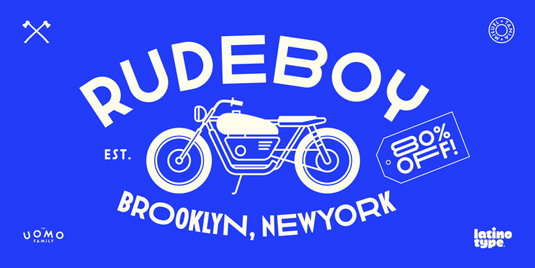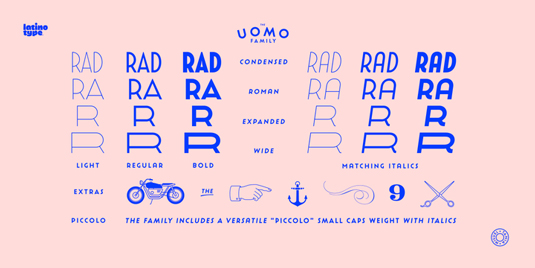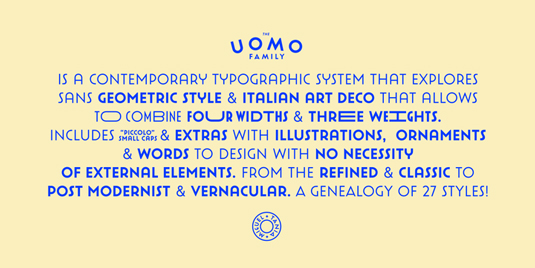
Font of the day: Uomo
Every day we showcase the best fonts on the web. Today it's Uomo by Tania Chacana and Miguel Hernández.
Uomo by Tania Chacana and Miguel Hernández
Created by type designers Tania Chacana and Miguel Hernández, today's typeface Uomo is described on MyFonts as a "contemporary typographic system that explores sans geometric style and Italian art deco".